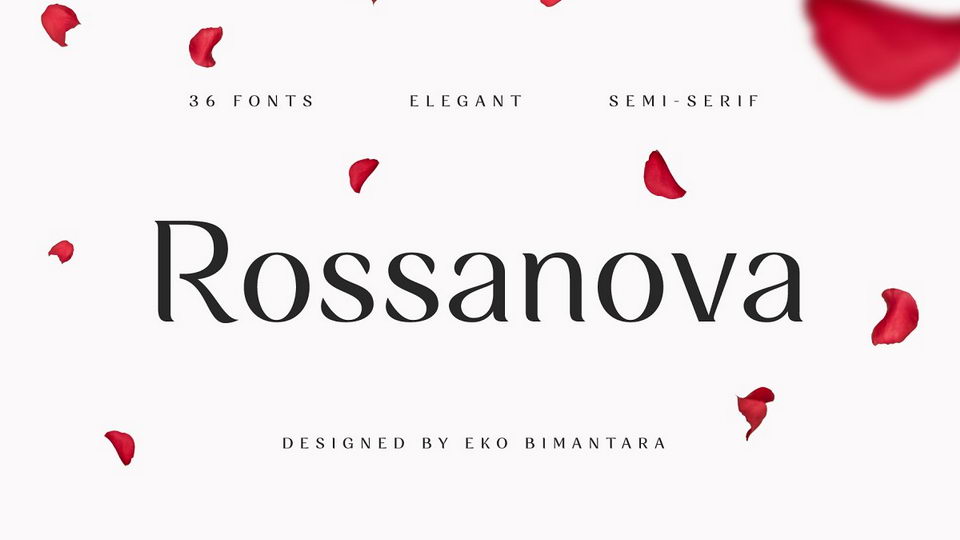
Download Rossanova typeface, a complete semi-serif font family of 36 fonts. Rossanova is enrich with beautiful personality, its shaped in high contrast strokes for the normal optical style and moderate contrast strokes for the text styles which fit for reading.